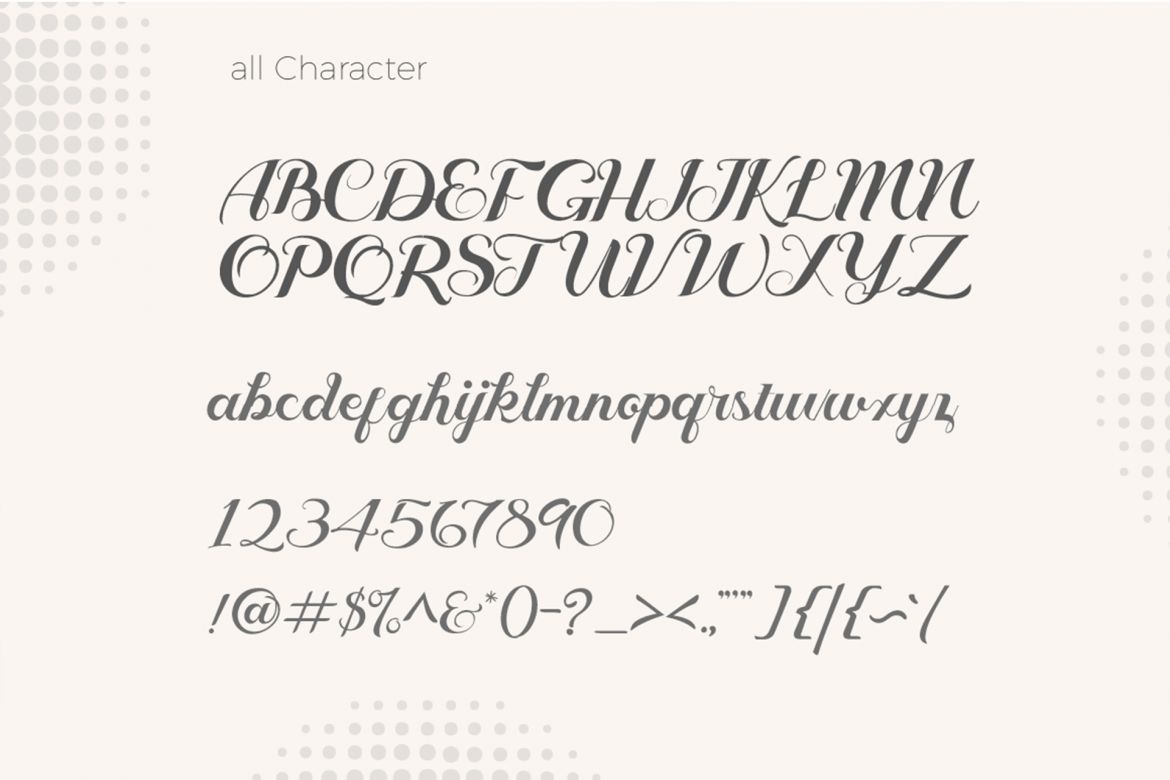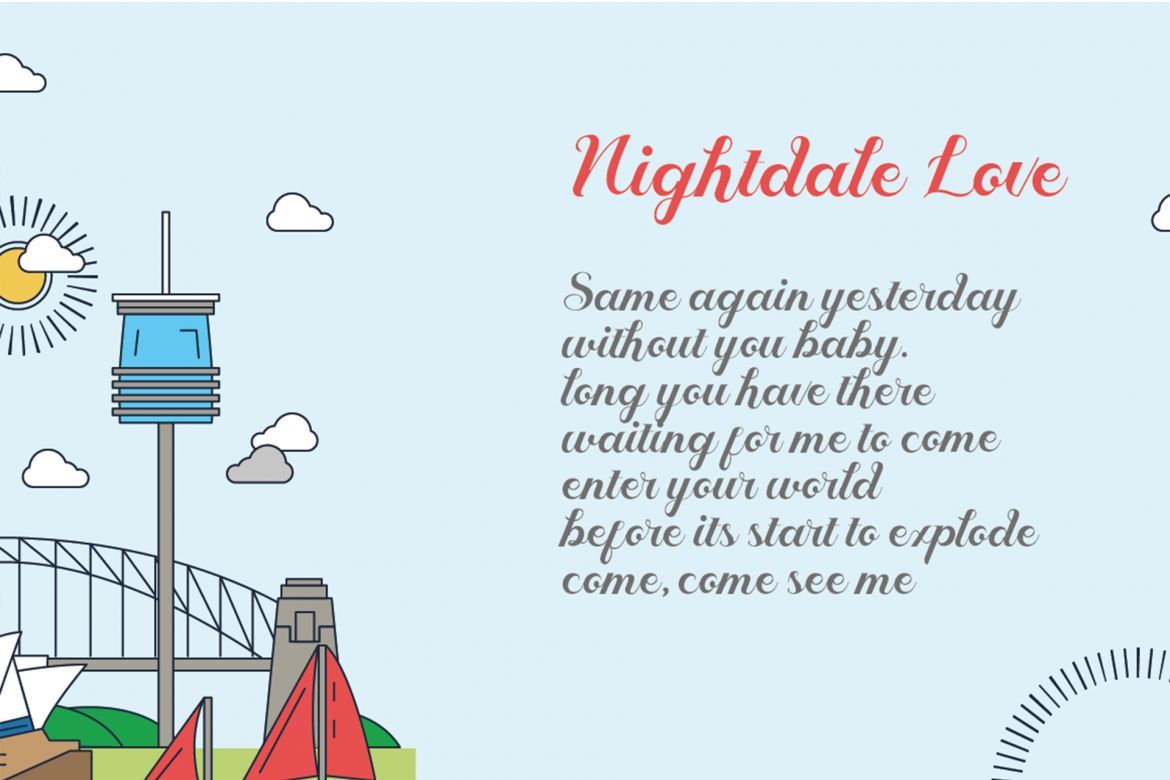
Geruthu Font
GERUTHU is a modern Display typeface with beauty in every single letter. It contains Uppercase and Lowercase character set !! GERUTHU allows you to create beautiful headlines, logos and titles in just minutes
GERUTHU FEATURES
Geruthu Unique Uppercase Geruthu Unique Lowercase Geruthu Unique Numbering and Symbol
• best font for wedding name on wedding card
• you can create the best print template with the font